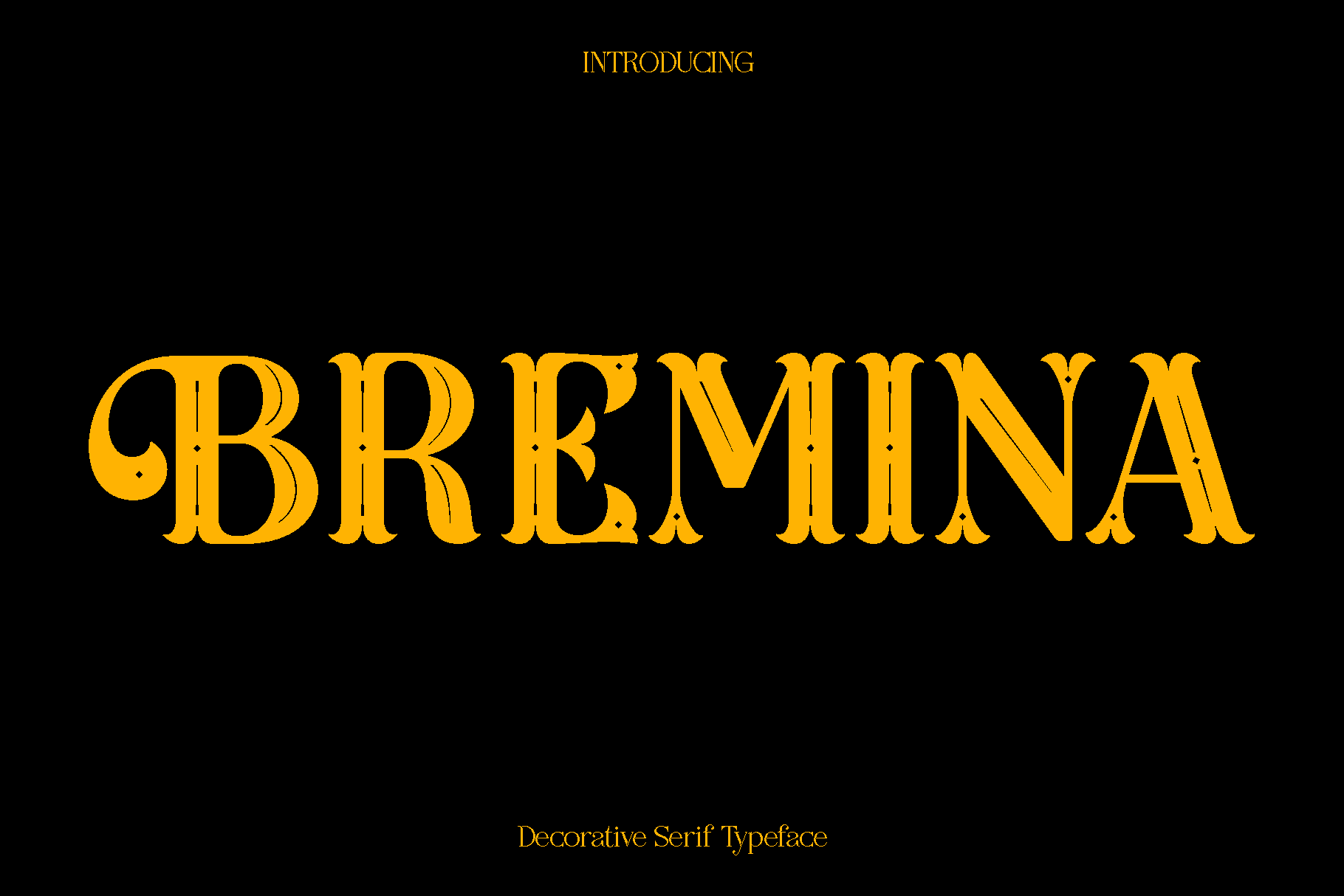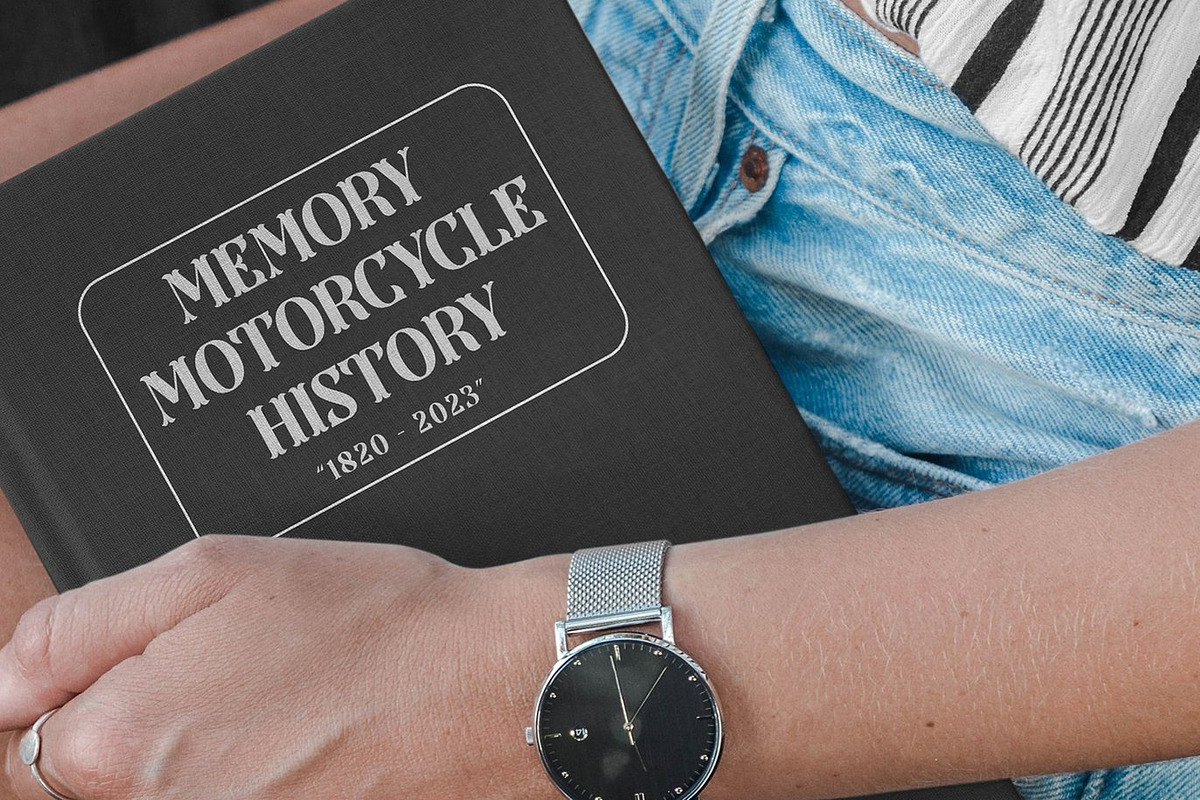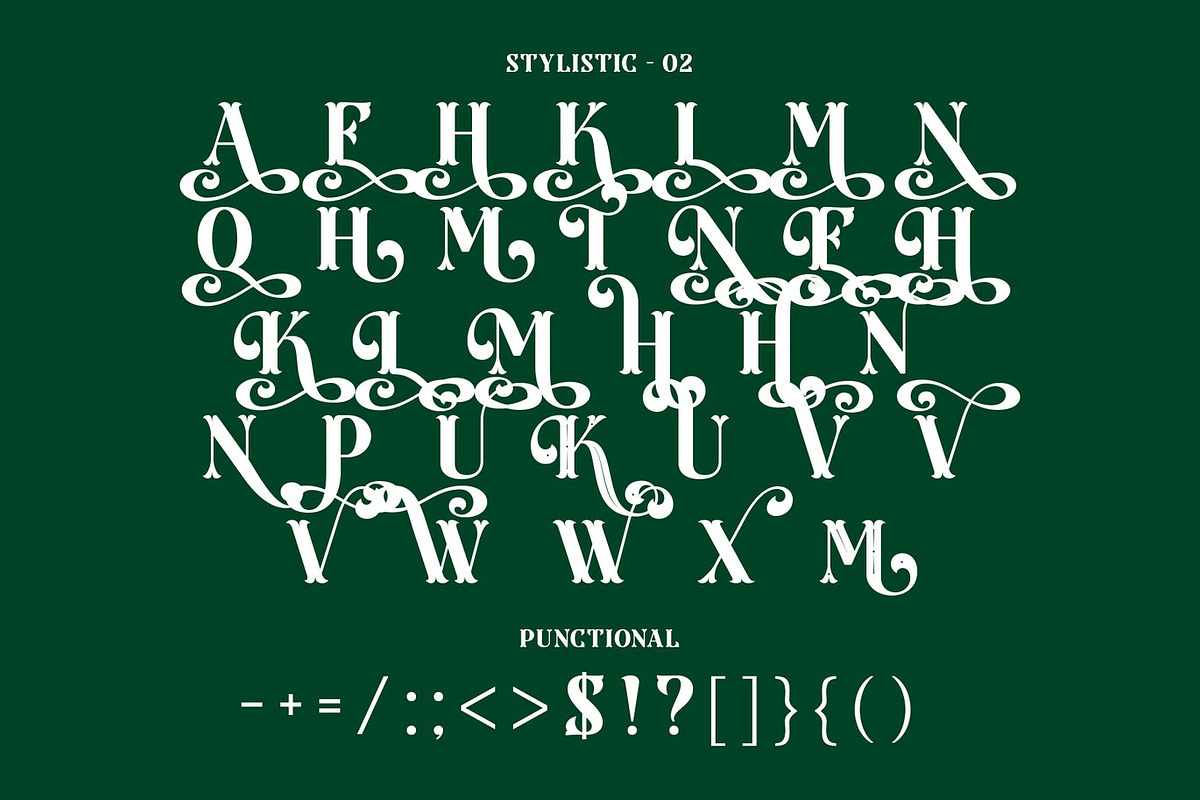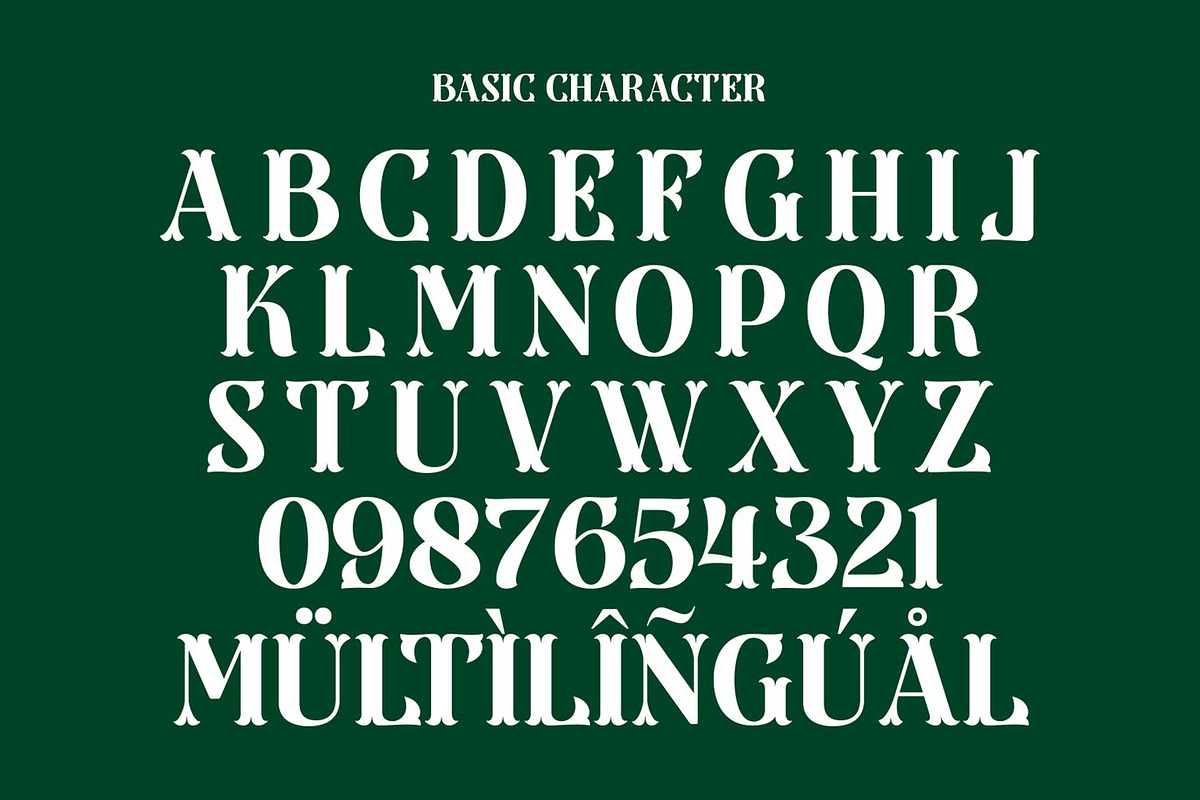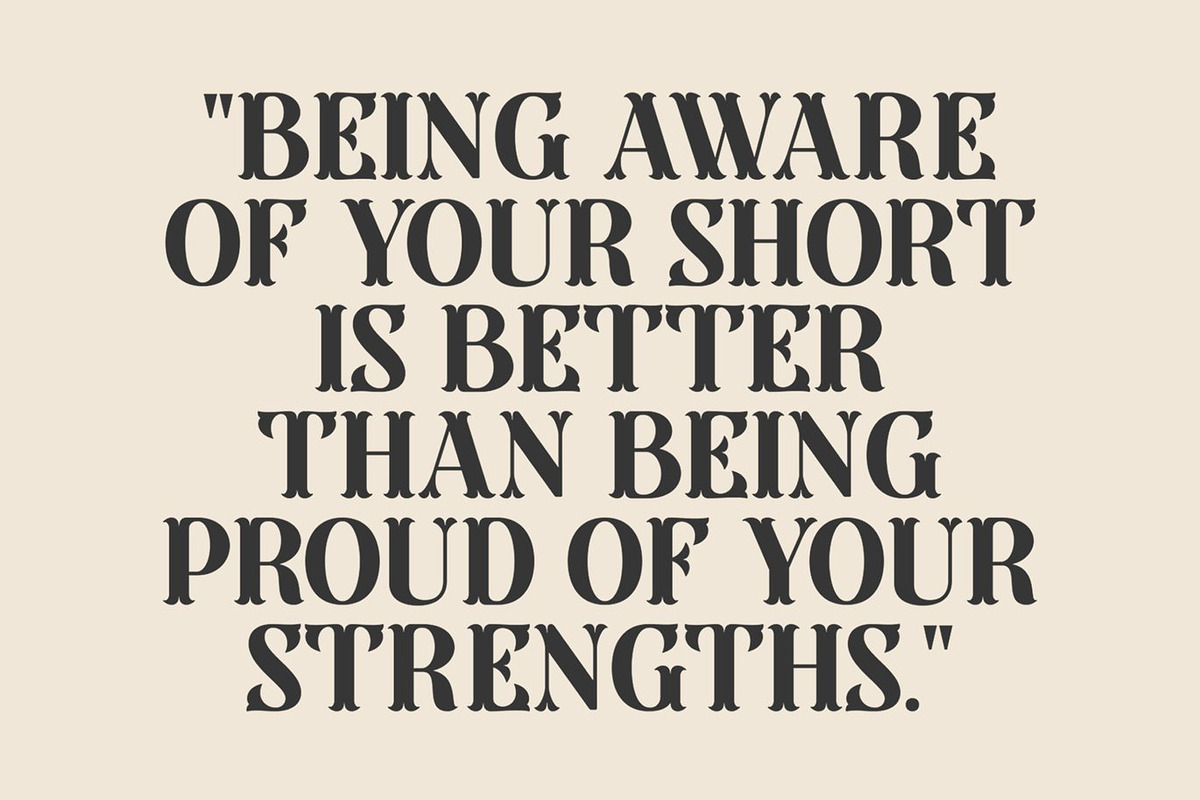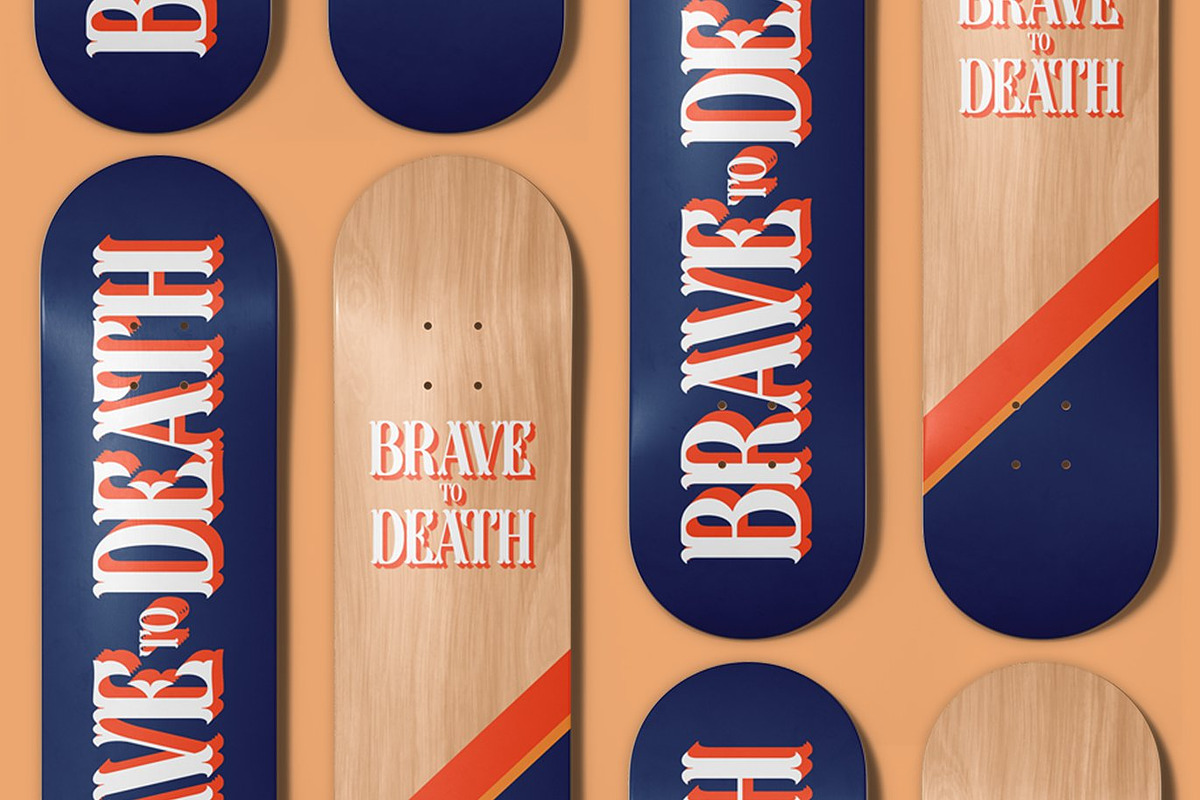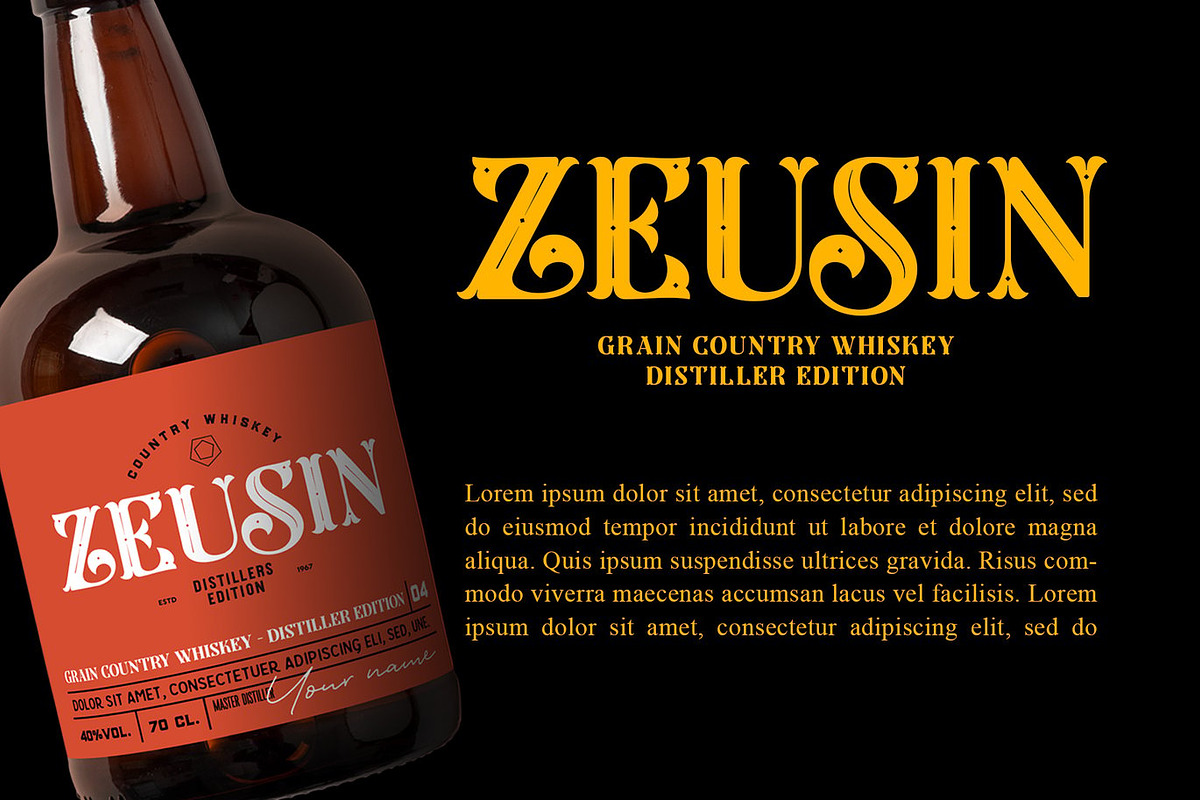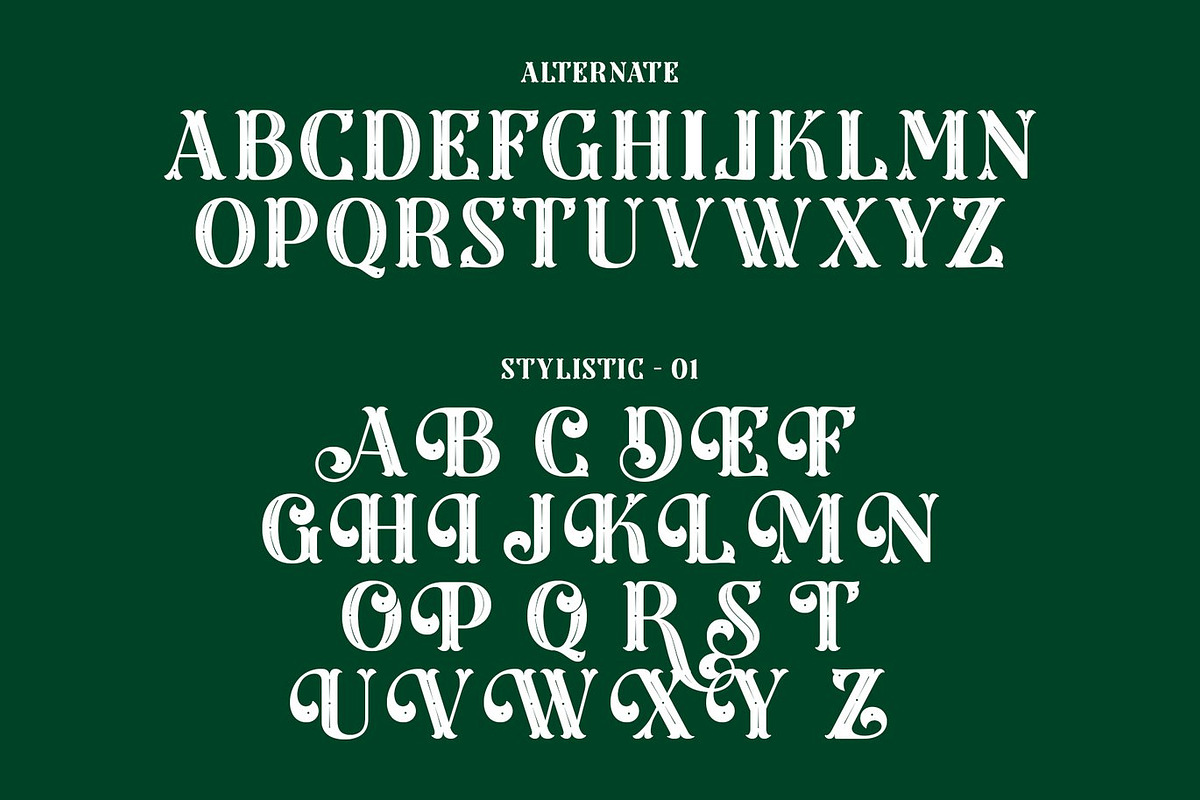
Bremina Decorative Serif Font
Bremina is a refined and versatile typeface created to bring clarity and style to a wide range of design projects. Designed with a focus on balance and readability, Bremina combines clean letterforms with a subtle elegance that makes it suitable for both creative and professional use. Its thoughtful construction ensures that every character feels harmonious, giving your typography a polished and confident appearance.
The font shines in editorial and branding environments where consistency and visual appeal are essential. Bremina works beautifully for books, magazines, logos, brand identities, photography overlays, quotes, blog headers, posters, and advertising materials. Whether used for bold titles or supporting text, it maintains excellent legibility while adding a refined personality to your layouts.
Bremina feels modern, approachable, and dependable. It adapts seamlessly across print and digital formats, making it a practical choice for designers who want a reliable typeface with a timeless aesthetic. From minimal branding to expressive editorial compositions, Bremina enhances your message with a clean and sophisticated tone.
Bremina Font Features:
• Uppercase and lowercase characters
• Numerals and functional glyphs
• Multilingual support
• OpenType features
Bremina is a dependable addition to any font library, offering flexibility, elegance, and clarity for designers who value both beauty and usability.